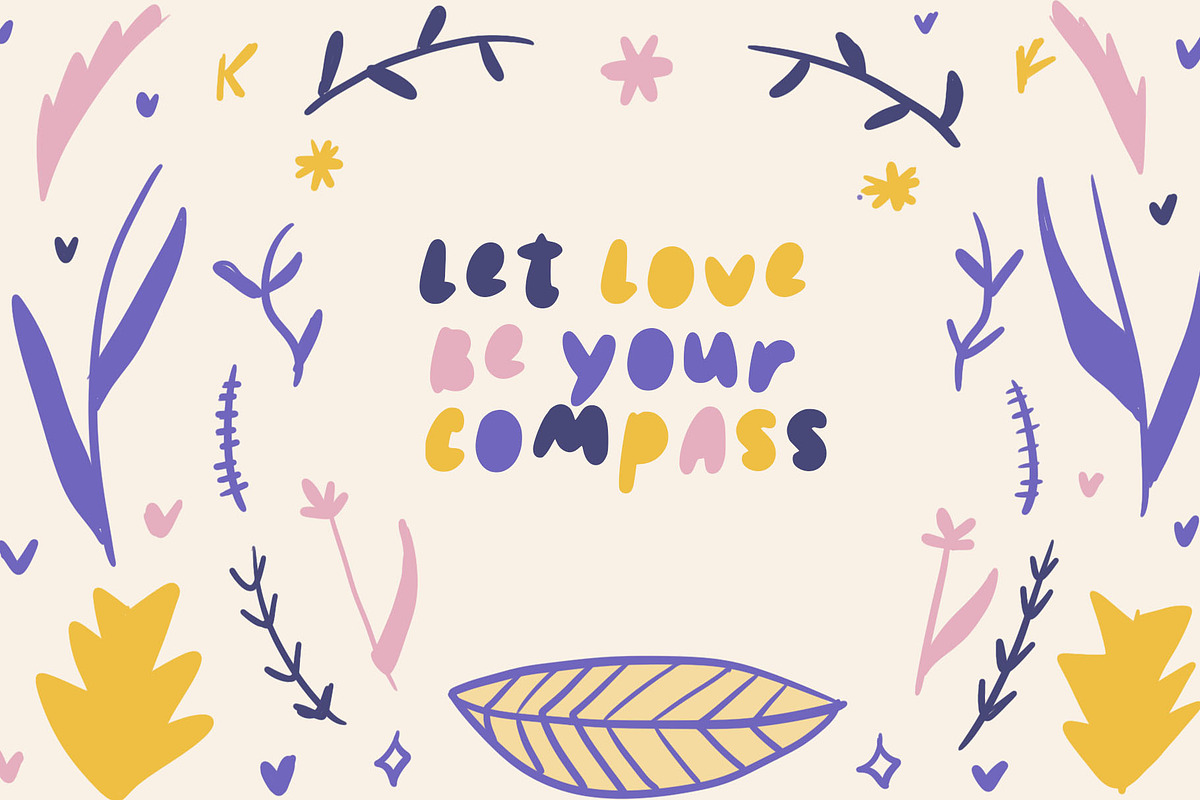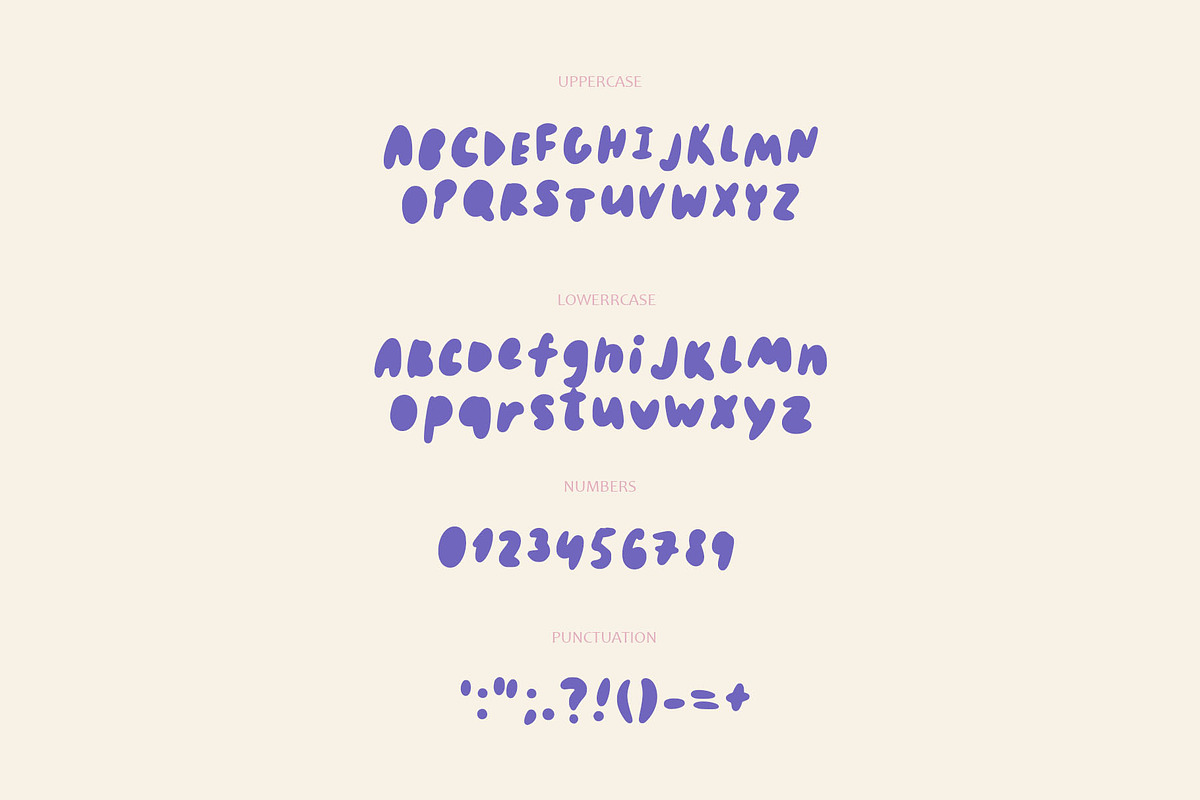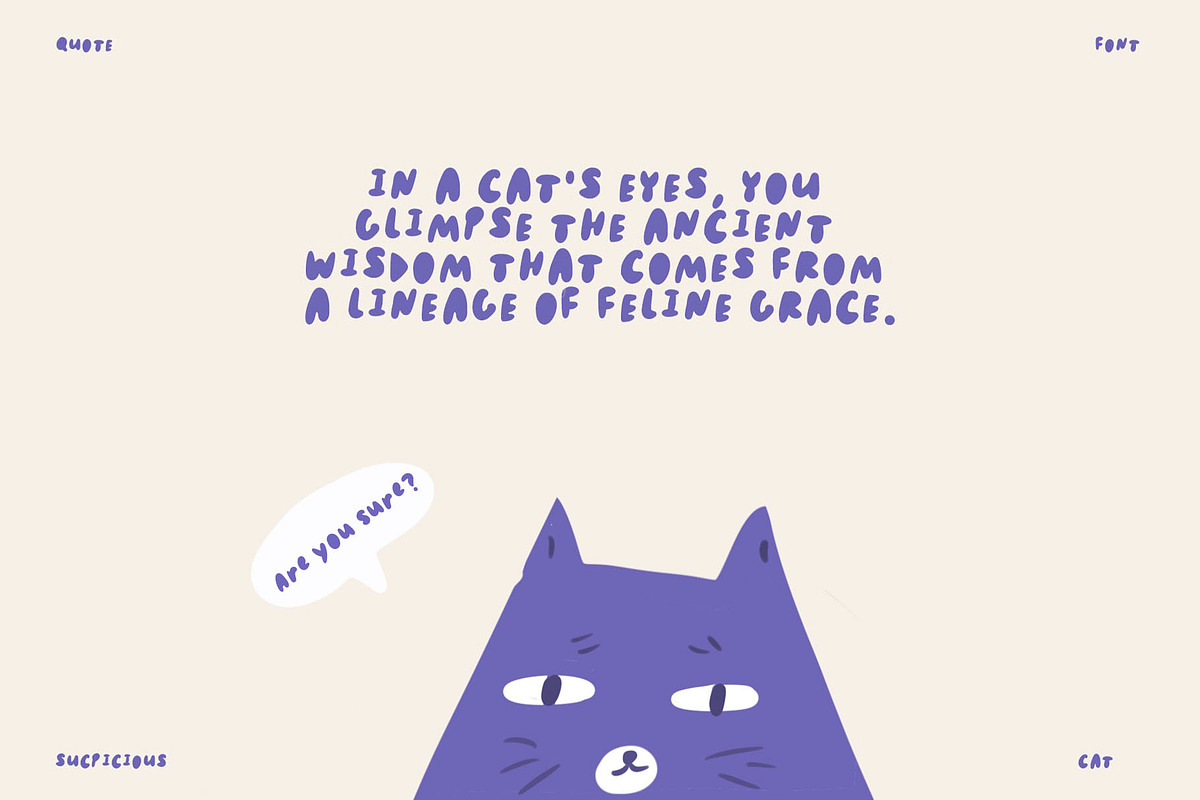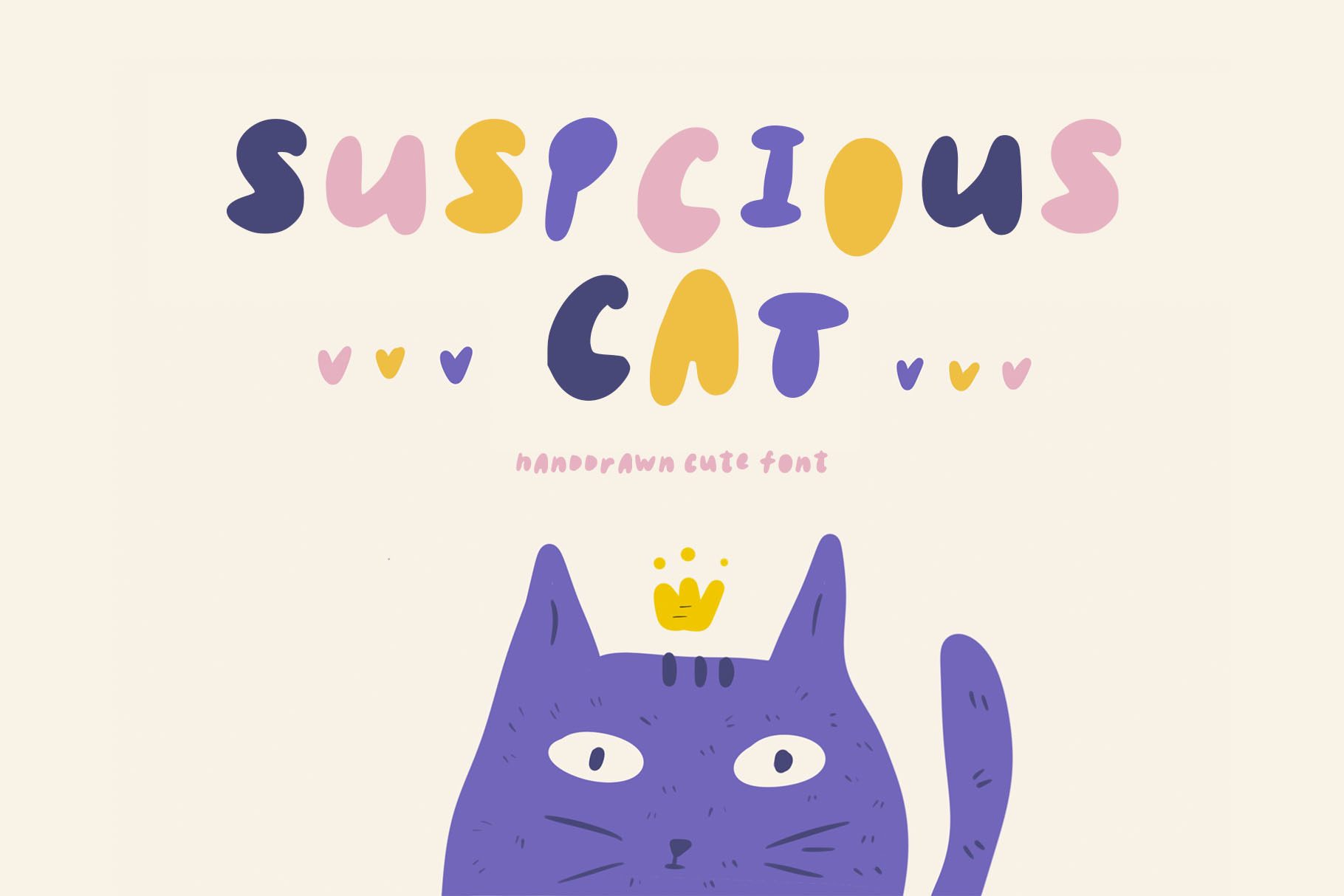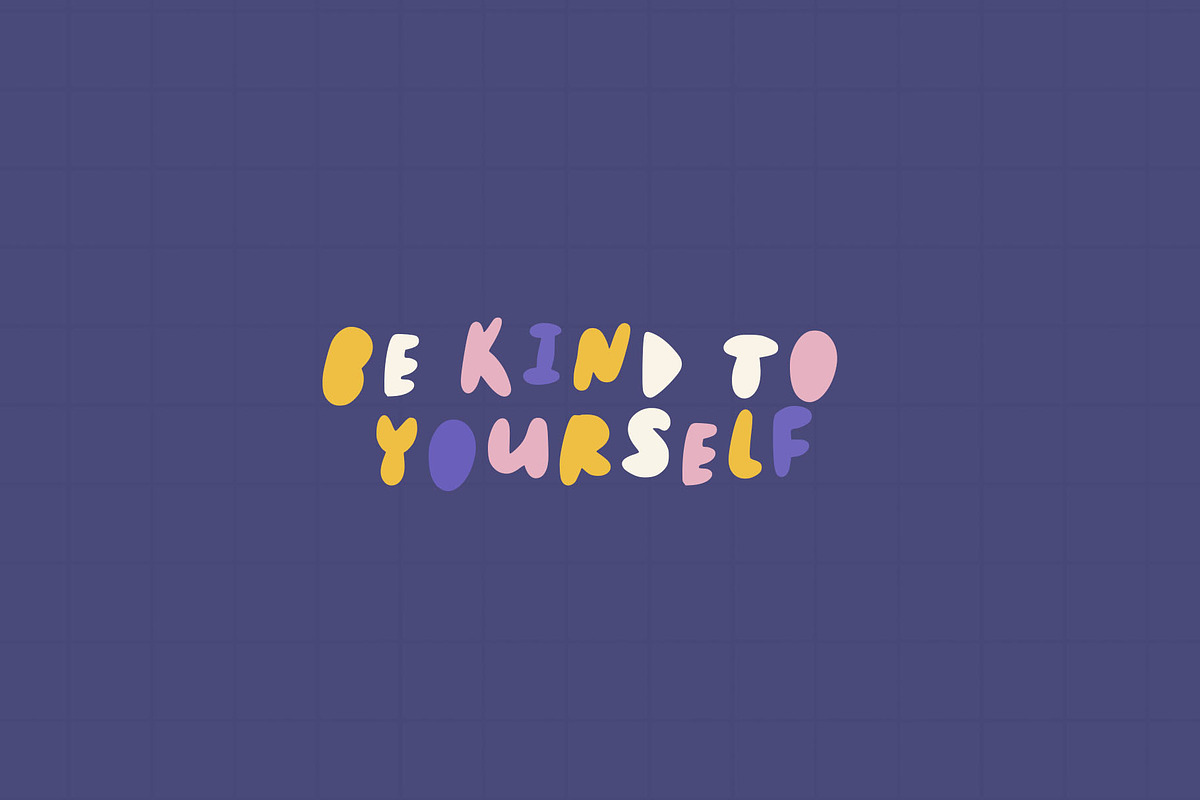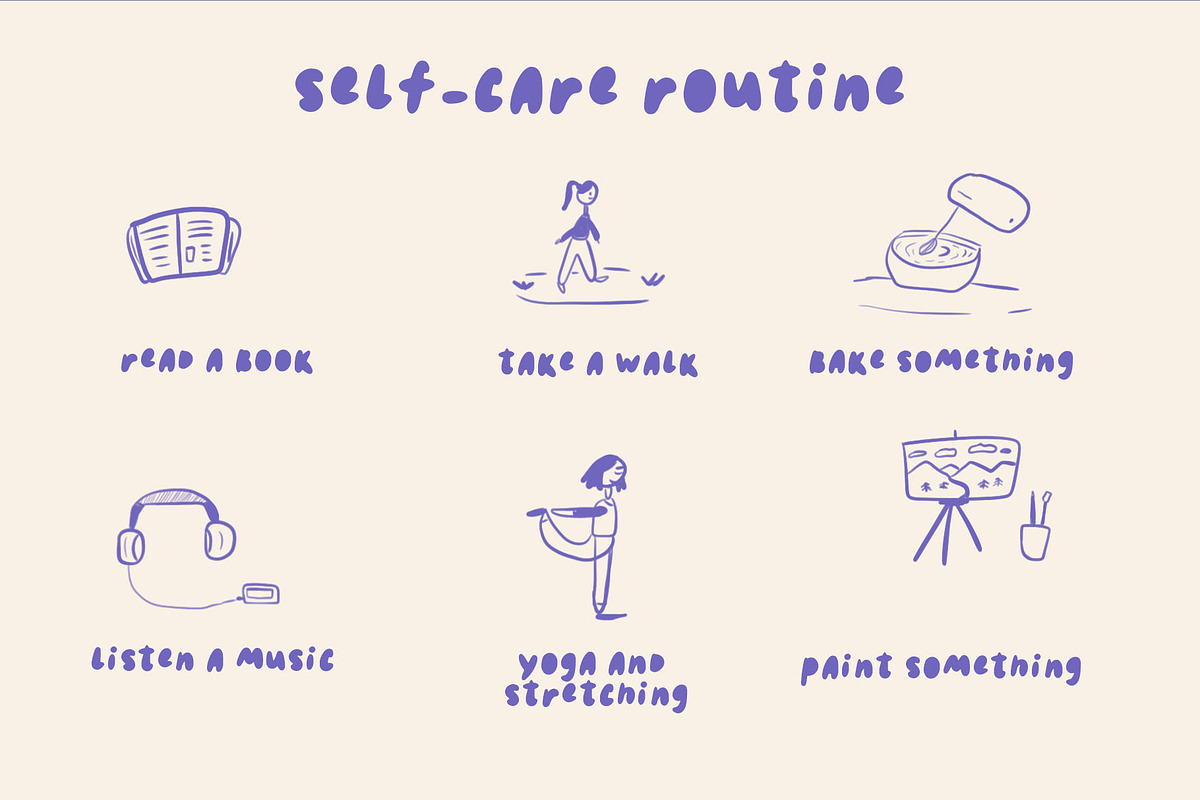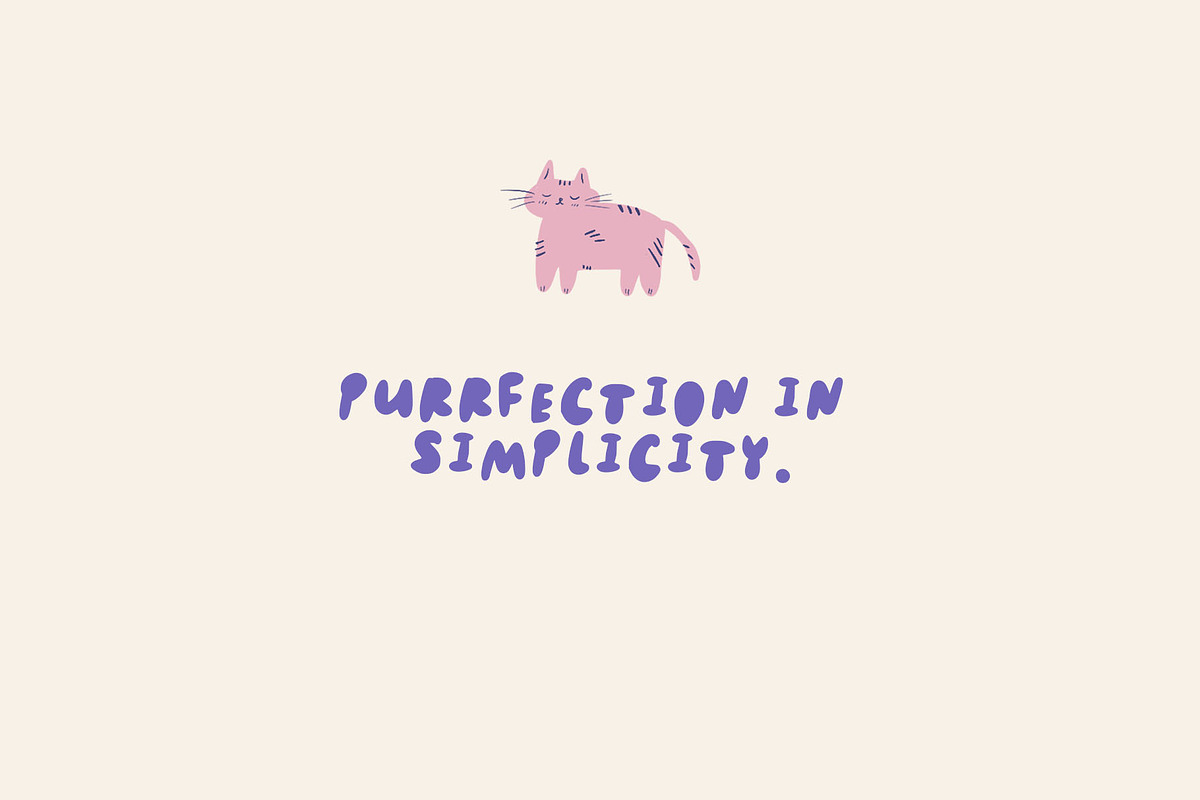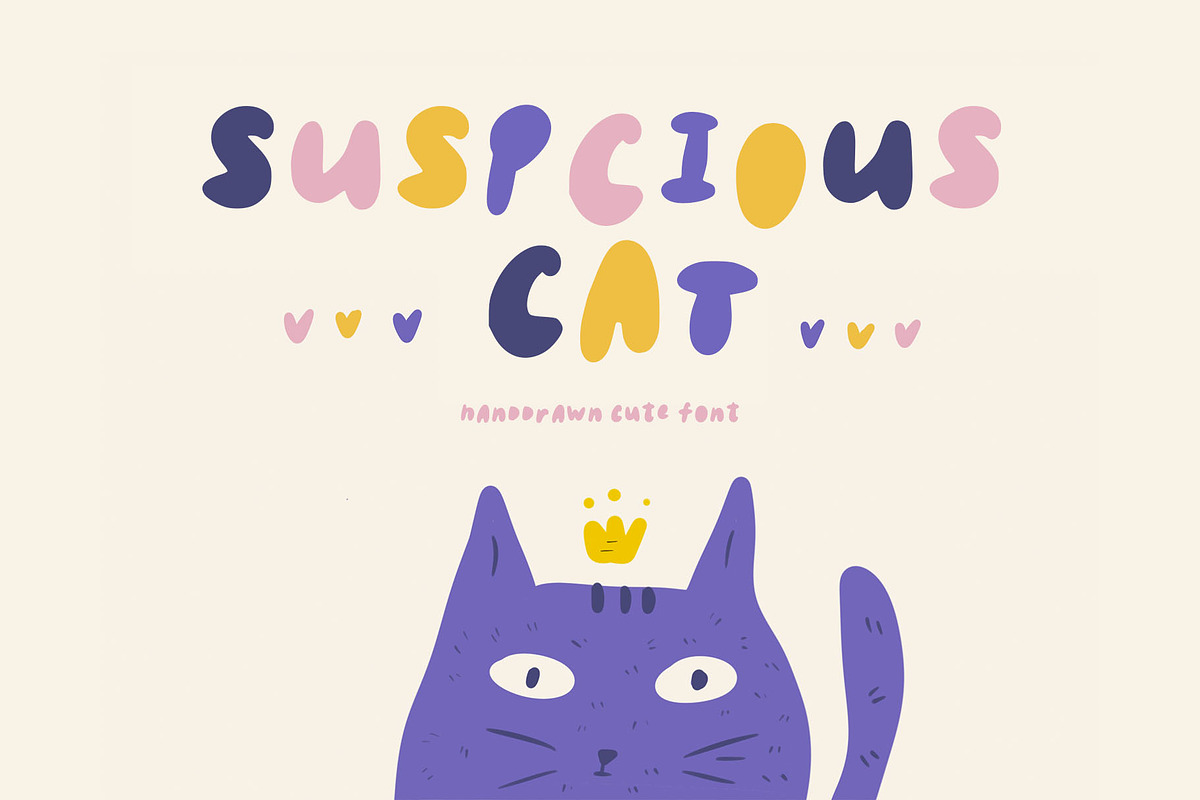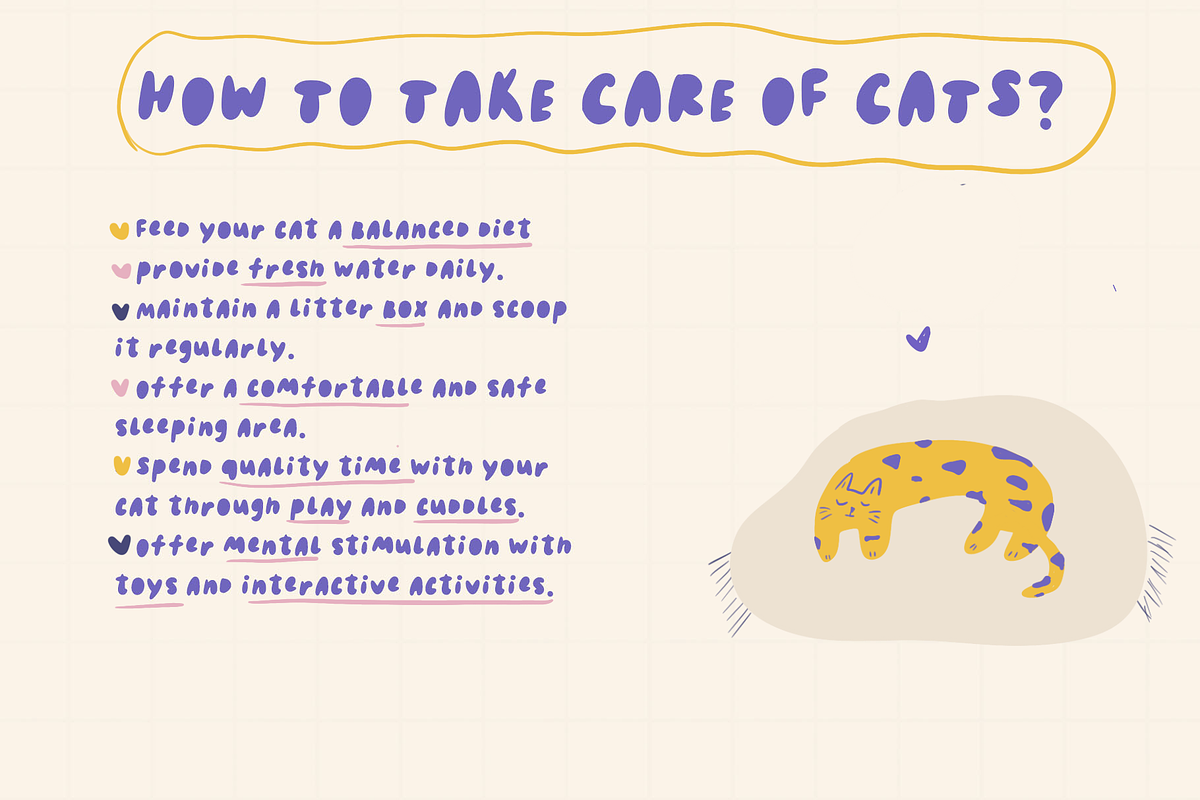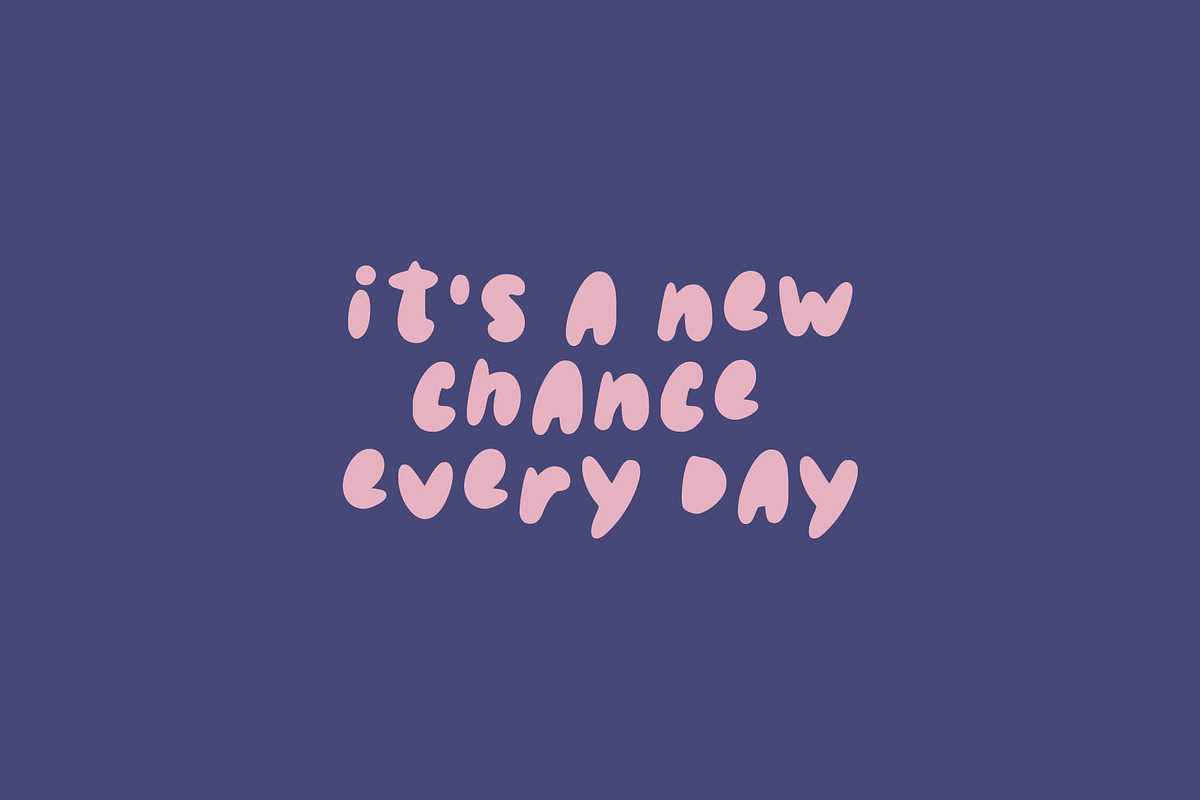
SUSPICIOUS CAT - PLAYFUL FONT
Hi there! ♡ My new kids cutout font ♡
It's perfect for headlines, social media posts, posters, card, quotes, cricut, etc.